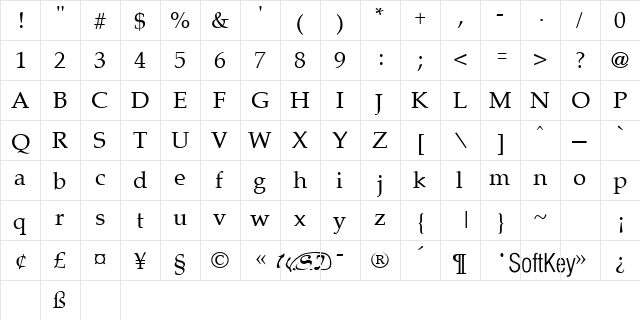
Palamino Regular
Design Context for Palamino Typeface
Palamino offers clean, dependable letterforms without strong stylistic allegiance, making it a practical choice for designers who need flexibility.